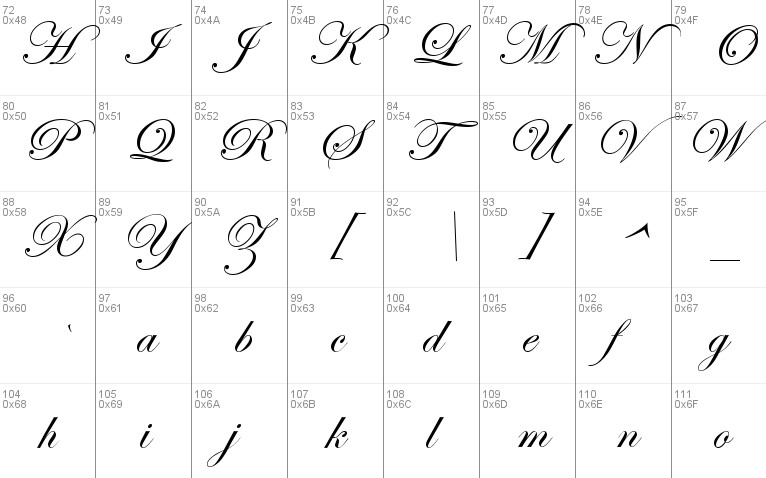
Edwardian Script Itc Font
Edwardian script itc font is famous for its work inside adobe photoshop. This is also used for its bold and italic function and also for logo designing. The italic typeface that seems like vogue font begins offevolved with a huge detail set helping the peak of the communications, small caps, pictograms, and bolts. Along the lines of the most effective, its a selection of a particular government and they’ll be the usage of it in challenge one-of-a-kind from their layout.
It has a present-day calligraphy aesthetic this is drastically contemporary-day. It similarly much like the font but it has exquisite typeface and inclinations. Download The woodlands have been created to offer designers an unfastened opportunity inside the manner that will help you gather that lettering take transport of as actual with anybody’s love. It’s far a version of a similarly ancient clean.